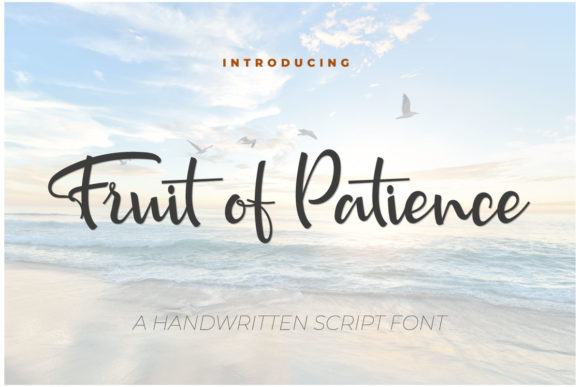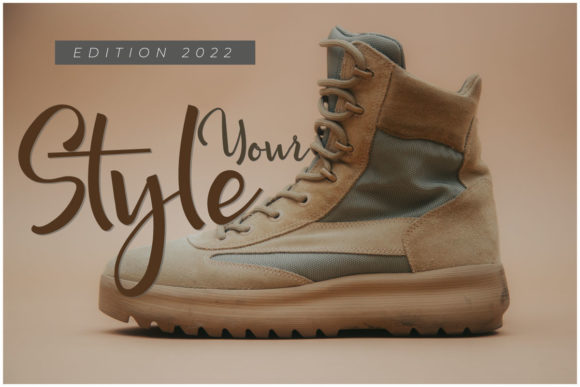
About Fruit of Patience Font
Fruit of Patience is a lovely and delicate script font that exudes elegance and class. This font was particularly crafted for those who need a beautiful and refreshing look to their designs.